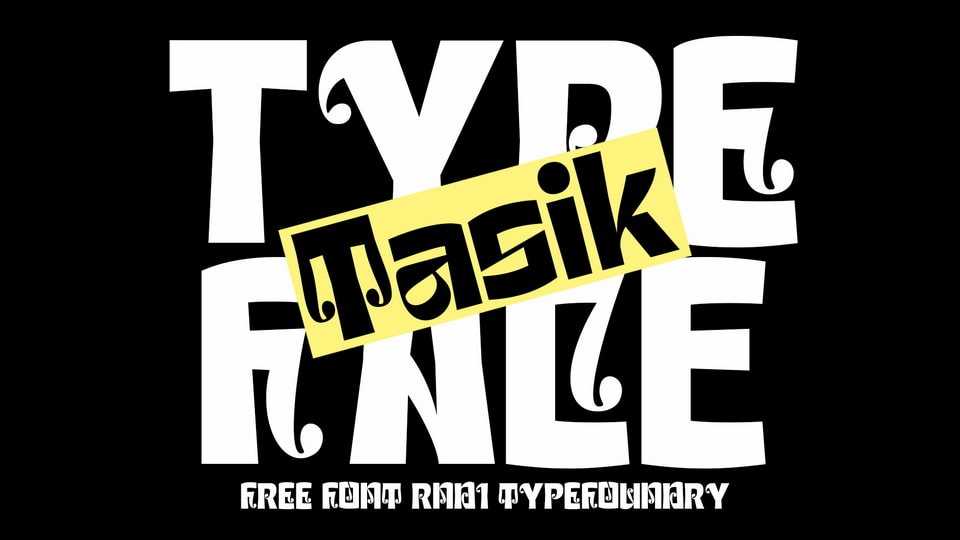
Download RNDI Tasik font, a vintage and versatile typeface designed to add a touch of elegance and sophistication to your projects. RNDI Tasik font offers flexibility and creativity in your designs.
Designer: RNDI Type Foundry